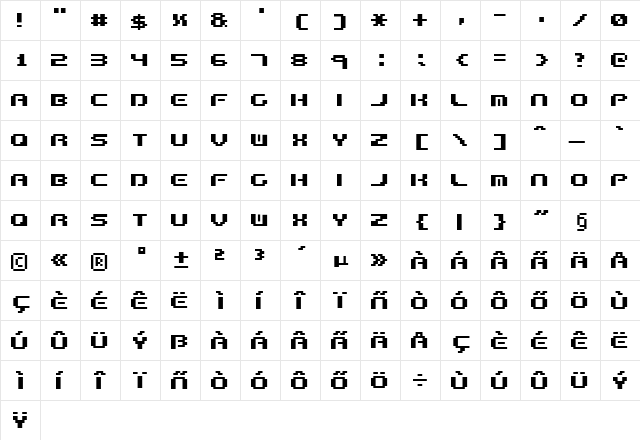
Formula too complex .2 Regular
| Designer | ck! [freakyfonts] |
Design Context for Formula too complex .2 Typeface
Formula too complex .2 is a composed and adaptable typeface that performs quietly and consistently across a wide range of design contexts.